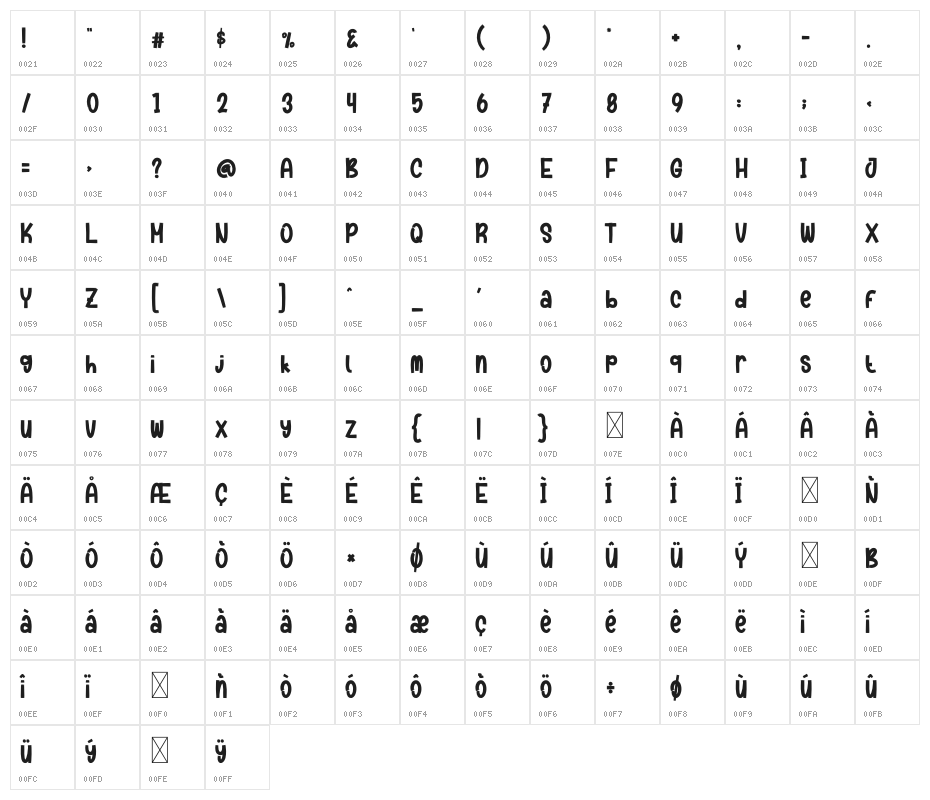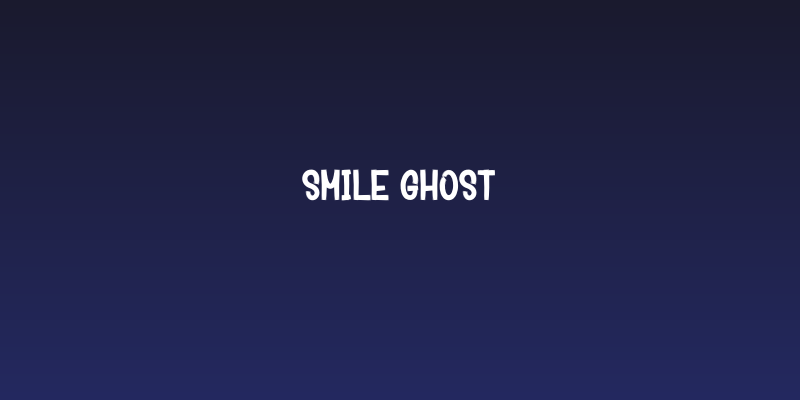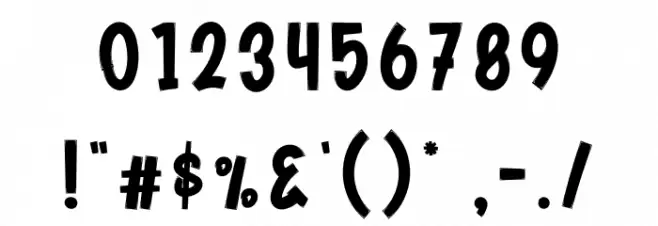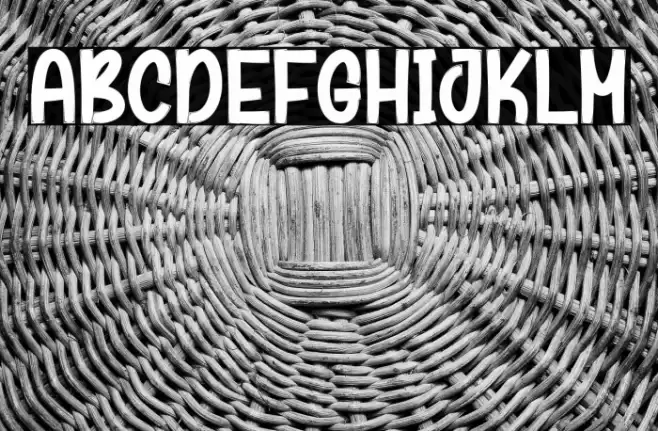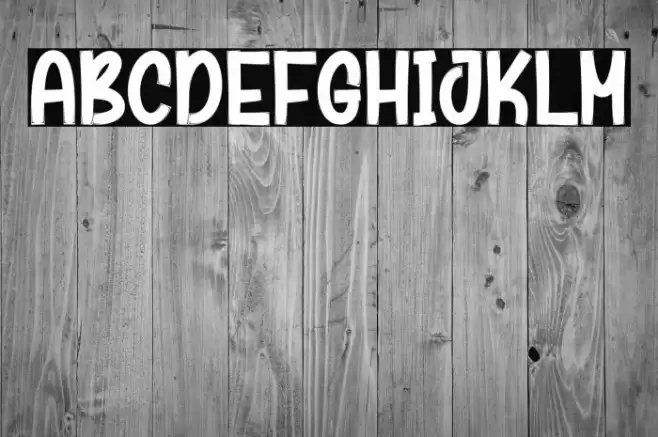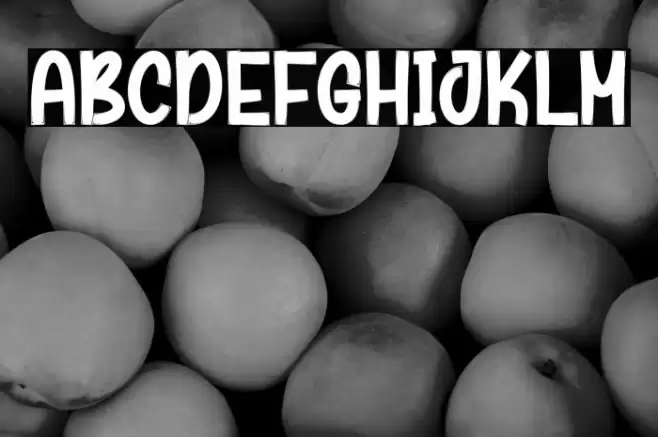
Smile Ghost Font
Smile Ghost Description
This font features a playful and bold design, characterized by its thick strokes and slightly irregular shapes, giving it a hand-drawn appearance. The letters have a whimsical and friendly vibe, with rounded edges and a slightly uneven baseline that adds to its charm. The uppercase and lowercase letters maintain a consistent style, while the numbers and special characters blend seamlessly with the overall aesthetic. This font is perfect for projects that require a fun and informal touch, making it ideal for creative and artistic applications.
| Overall Style | Playful, Whimsical |
| Proposed Projects | Ideal for children's books, playful branding, party invitations, and creative posters. |